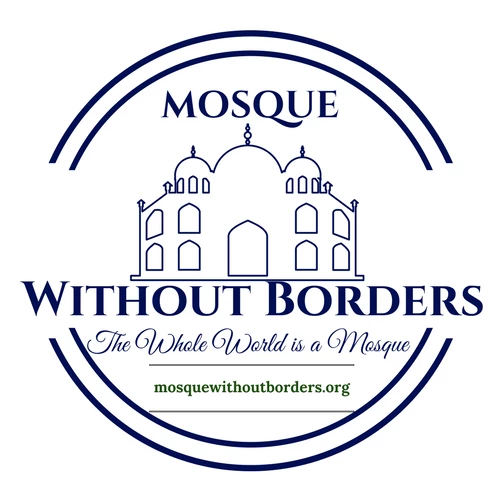
Have you tried WhatTheFont, WhatFontIs, or the Fontspring Matcherator?
I have found myself the one which is in calligraphy style, it is "GreatVibes-Regular". But did not find the other font for "MOSQUE WITHOUT BORDERS". I try the websites you have mentioned.